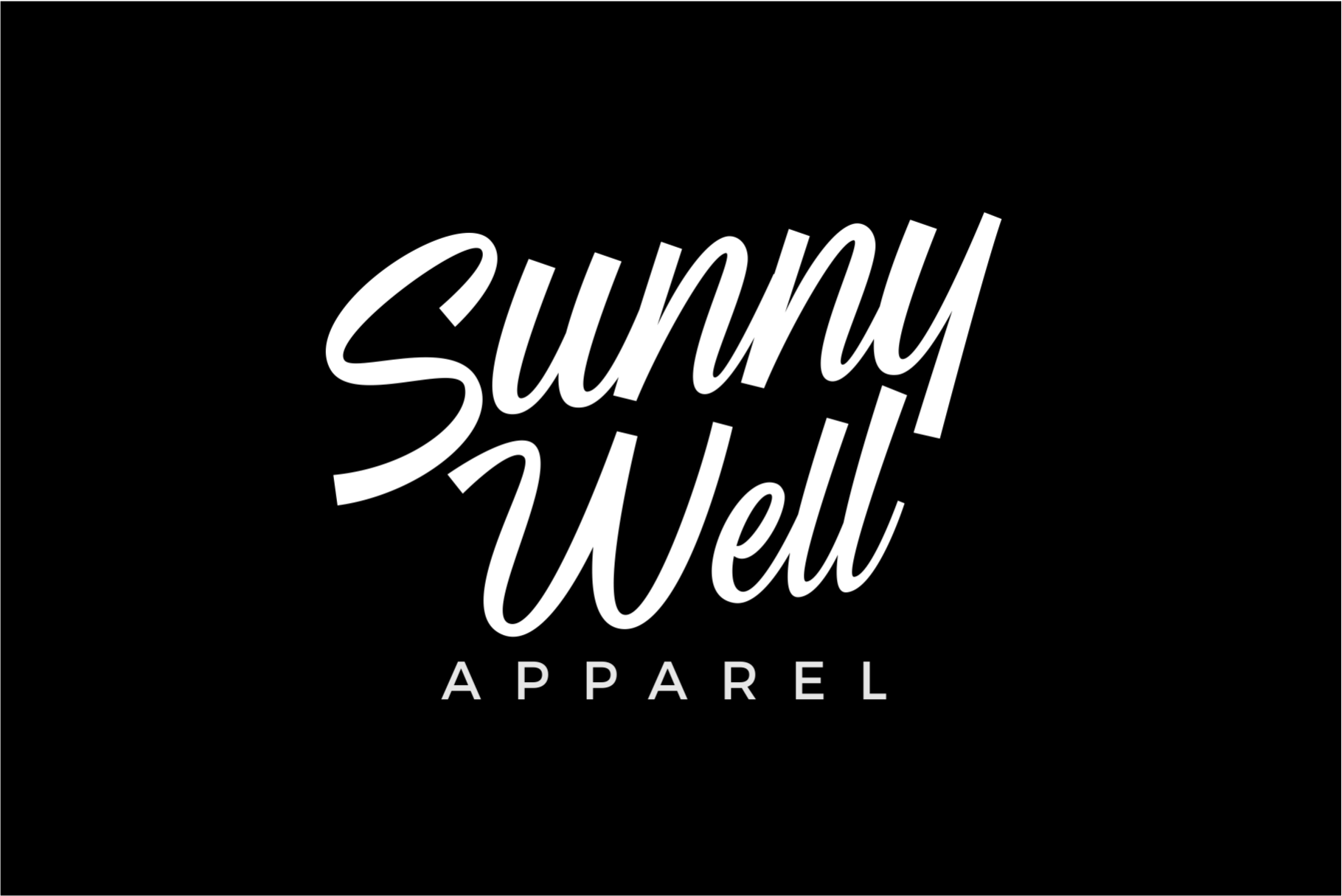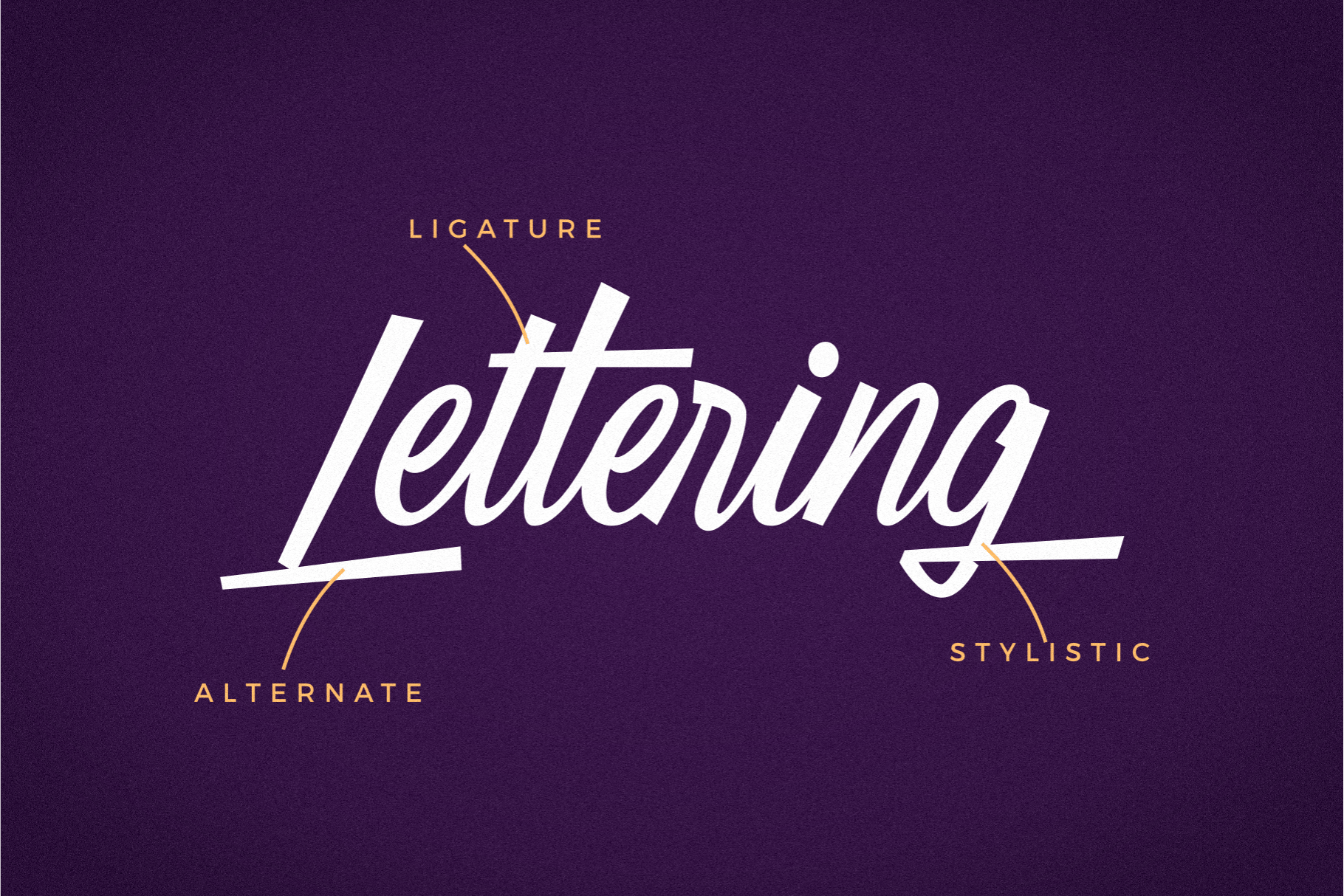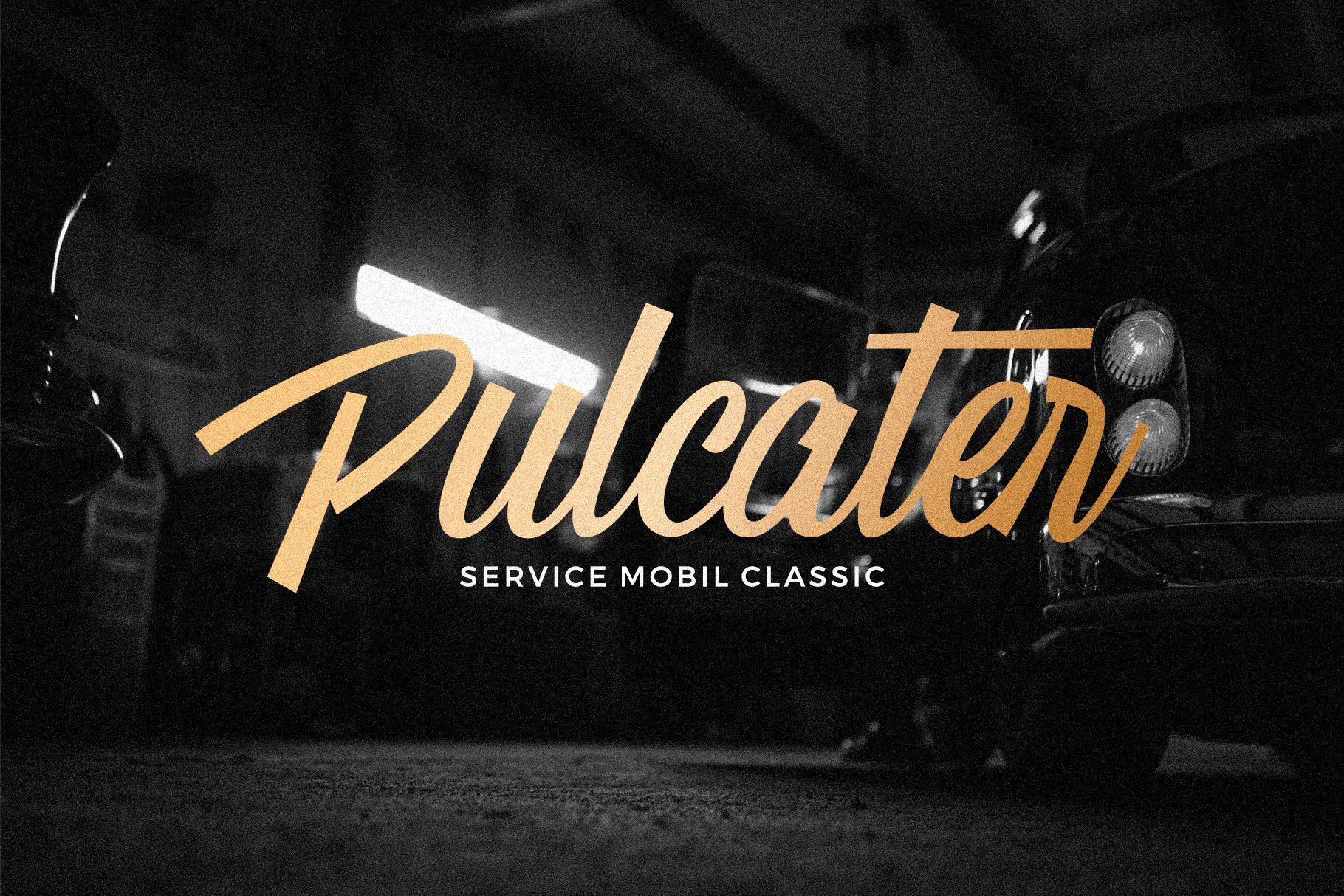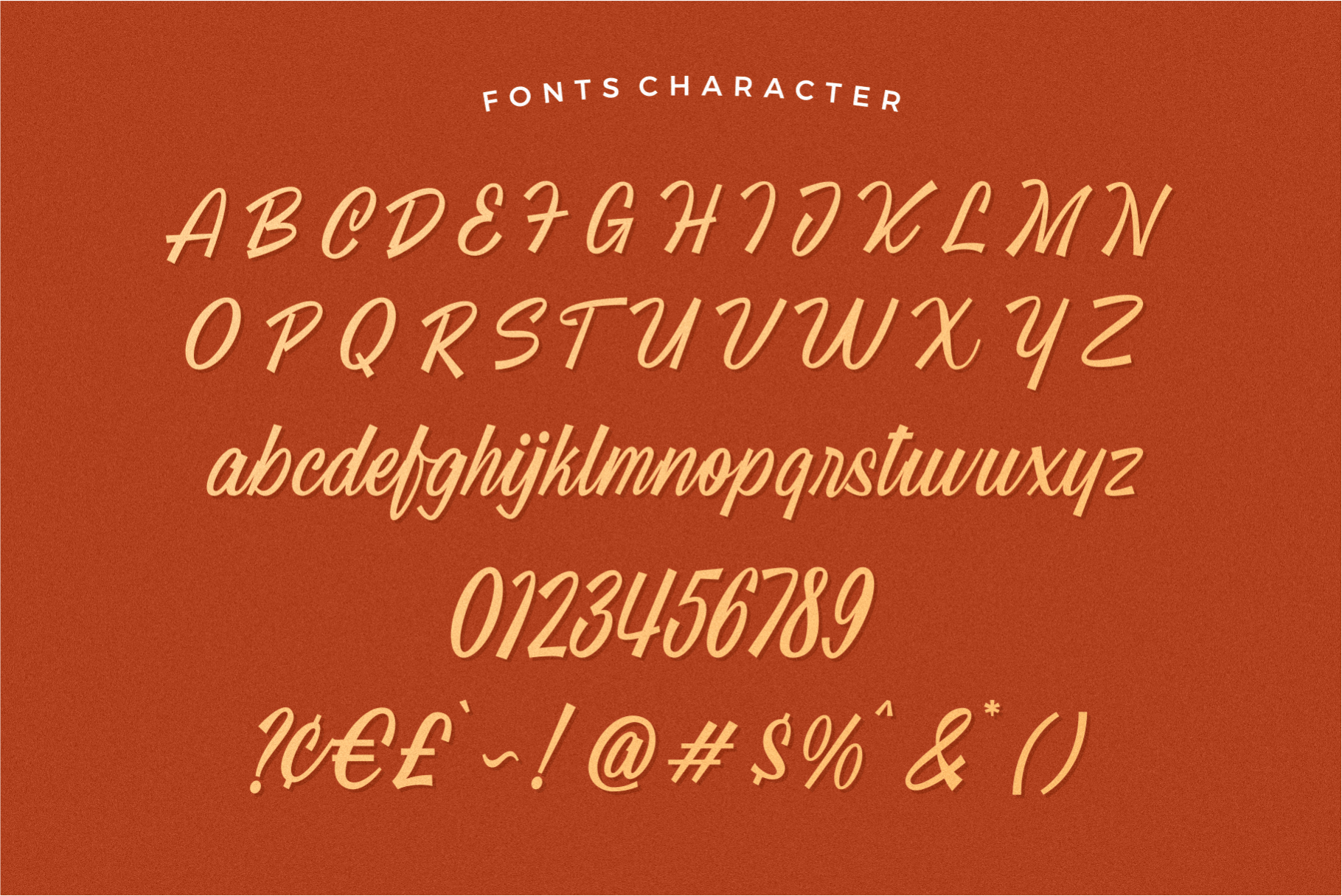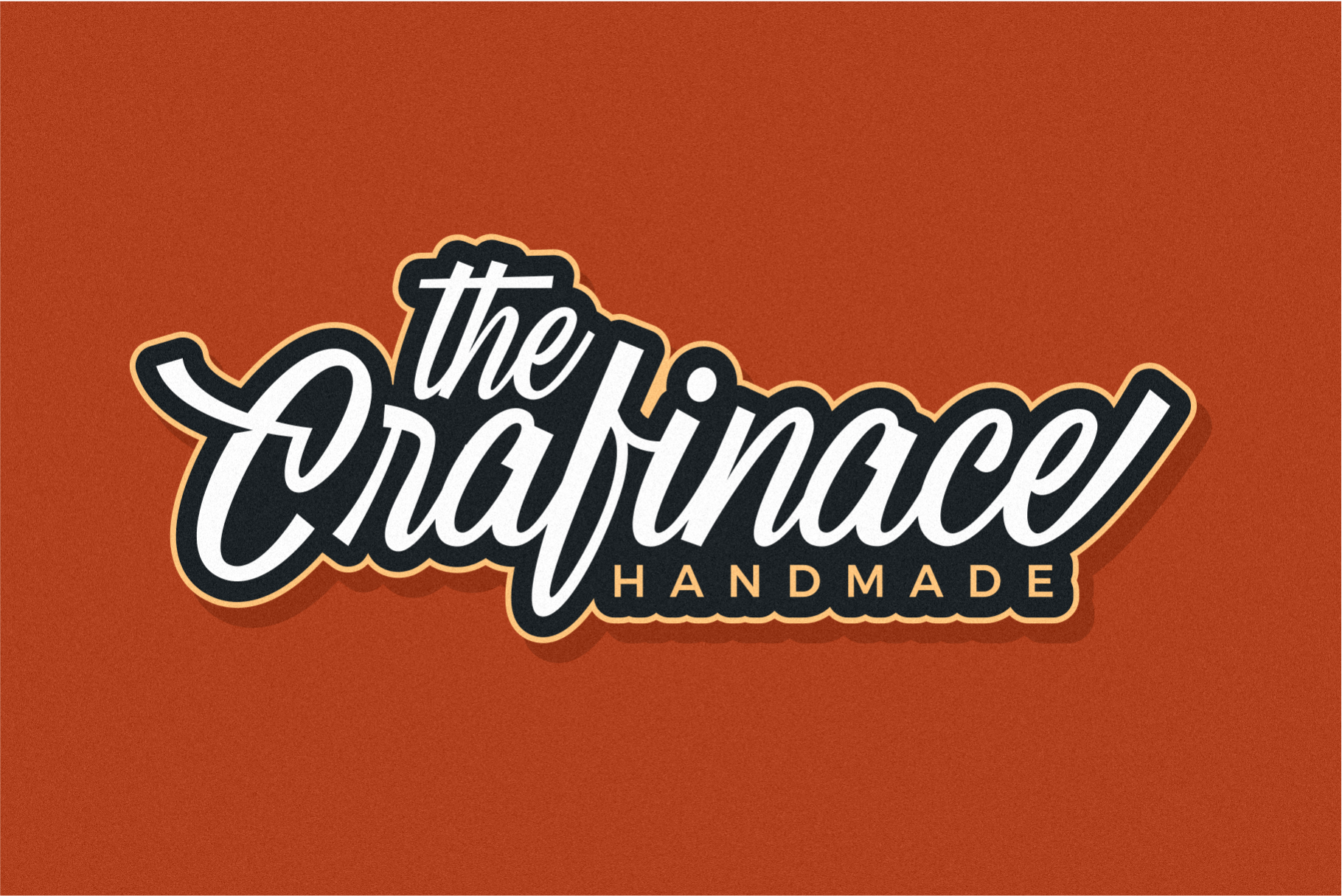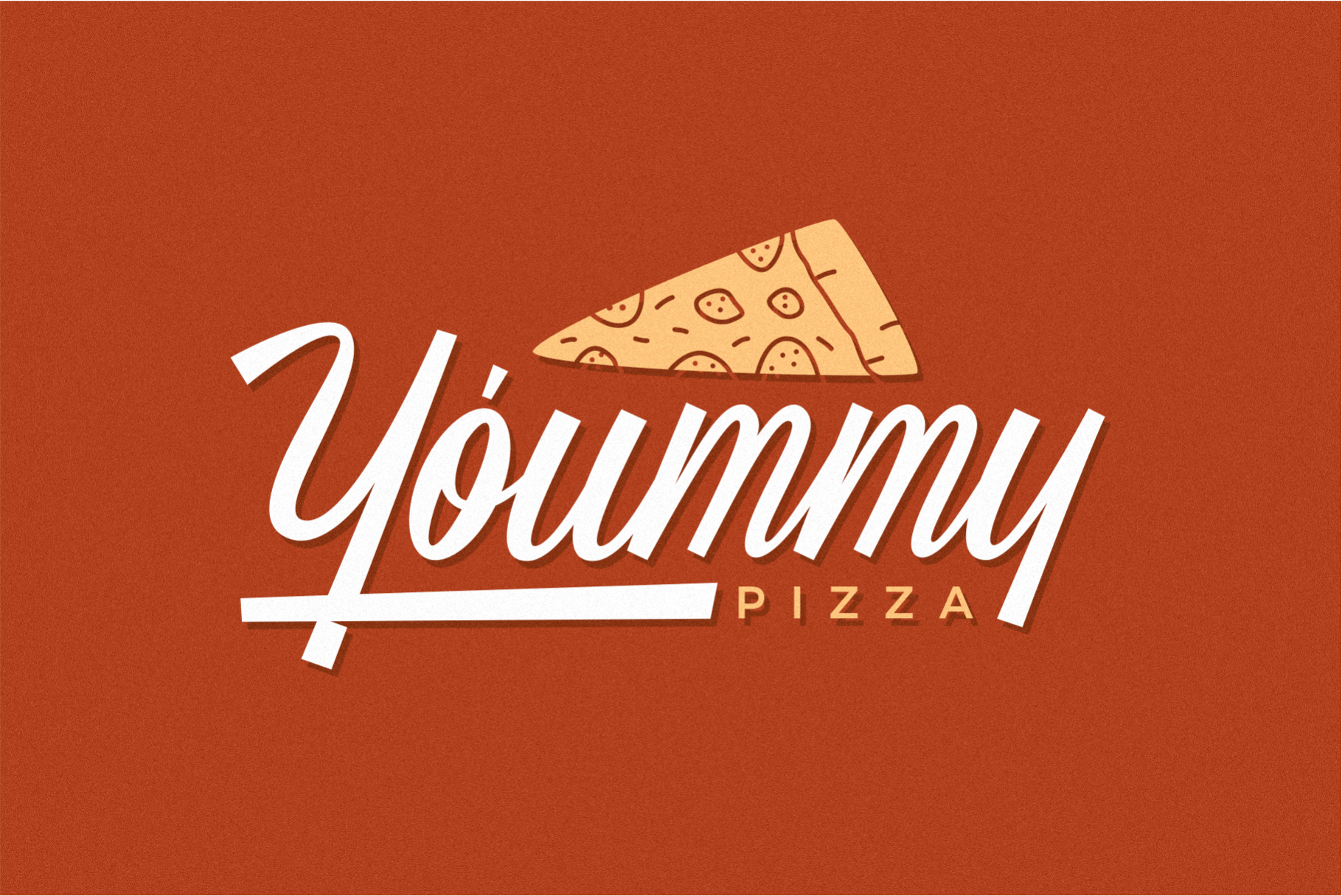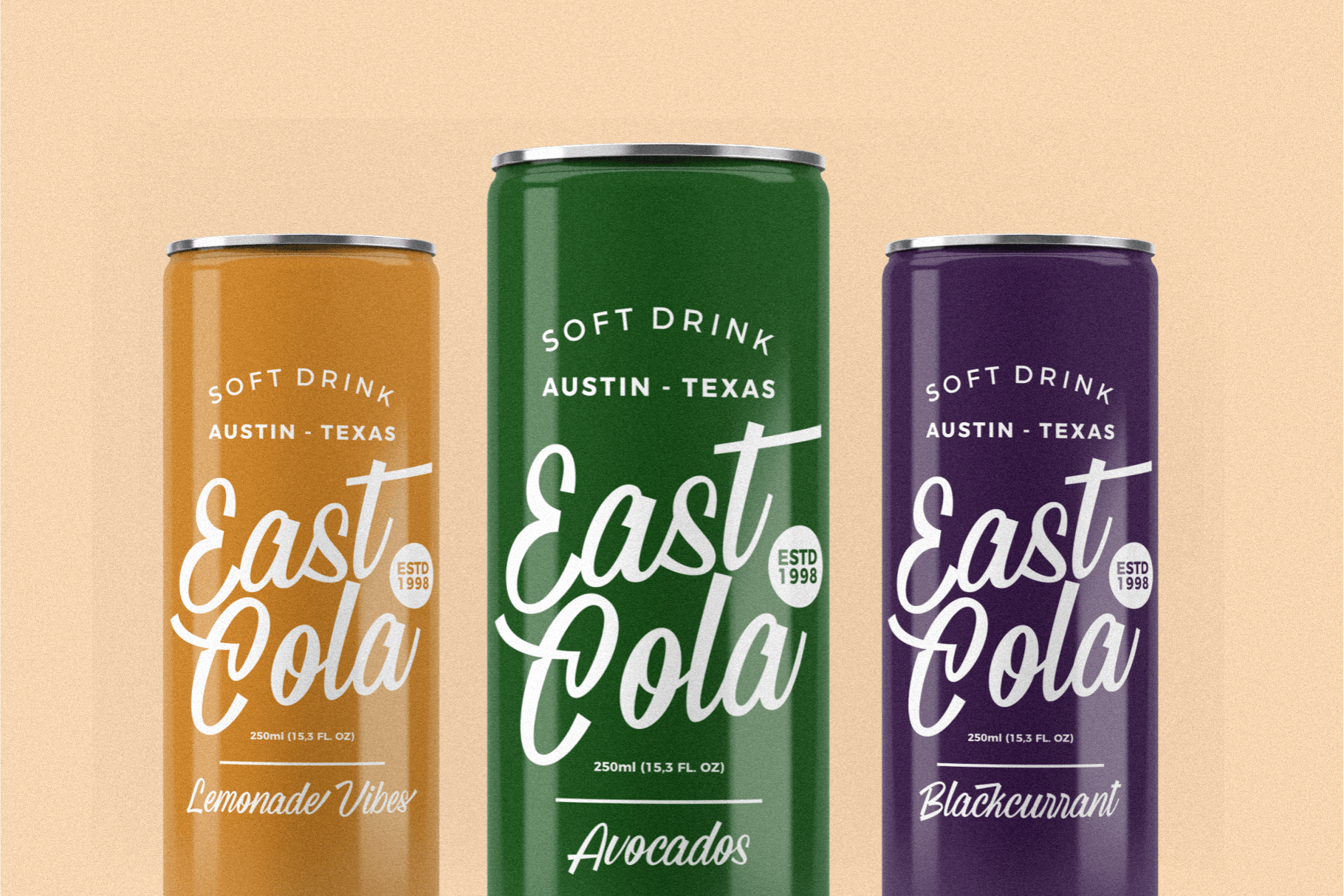
Trainitty Vintage Script
Trainitty is vintage script font for designs that require an old style touch, such as logos, packaging designs, label designs, suitable for the apparel business, clothing line, motorbikes, cars, workshops/garage and others.